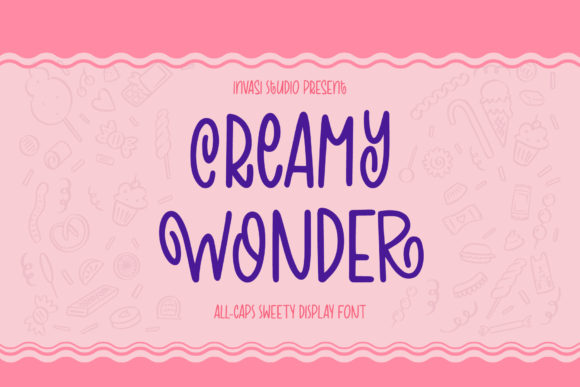
Prepare yourself for the ultimate lettering experience with our extraordinary Creamy Wonder display font! This captivating font is a masterpiece designed to elevate your projects to new heights of style and originality.
Indulge in the irresistible charm of Creamy Wonder and witness the transformation of your words into captivating works of art. Its sweeping curves and luscious strokes evoke a sense of elegance and warmth, effortlessly capturing the essence of your heartfelt quotes and artistic visions.
Whether you're a seasoned designer or a creative enthusiast, Creamy Wonder is the ideal font to unleash your imagination. Its versatile nature adapts effortlessly to a myriad of styles, ranging from whimsical invitations to eye-catching posters.
Step into a realm of endless possibilities and embrace the allure of Creamy Wonder. Its captivating curves will ignite your creativity, empowering you to craft designs that resonate with emotion and leave a lasting impression.
With Creamy Wonder at your fingertips, the world of lettering becomes your oyster. Prepare to weave enchanting tales, design breathtaking logos, and create captivating social media posts that will captivate your audience.